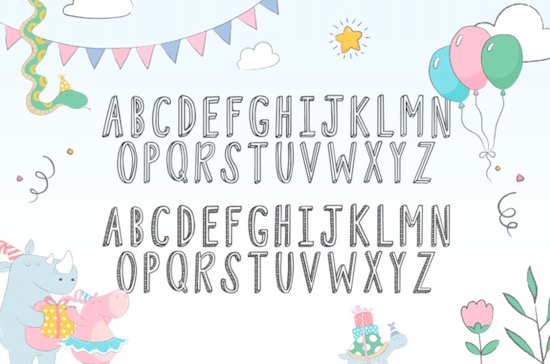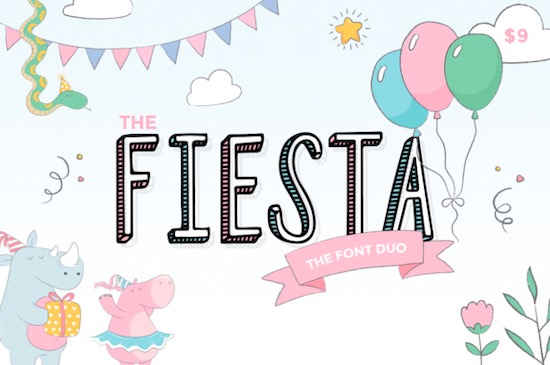
Fiesta Font
by Salt and Pepper Fonts
Wow, a great modern font for Fiesta party. It’s called Fiesta font, this font was designed by Salt & Pepper Designs. Fiesta is a fancy font duo with 2 different styles are outline and regular. This is a classic display sans font that is dedicated to clients who need a unique text and vintage style.